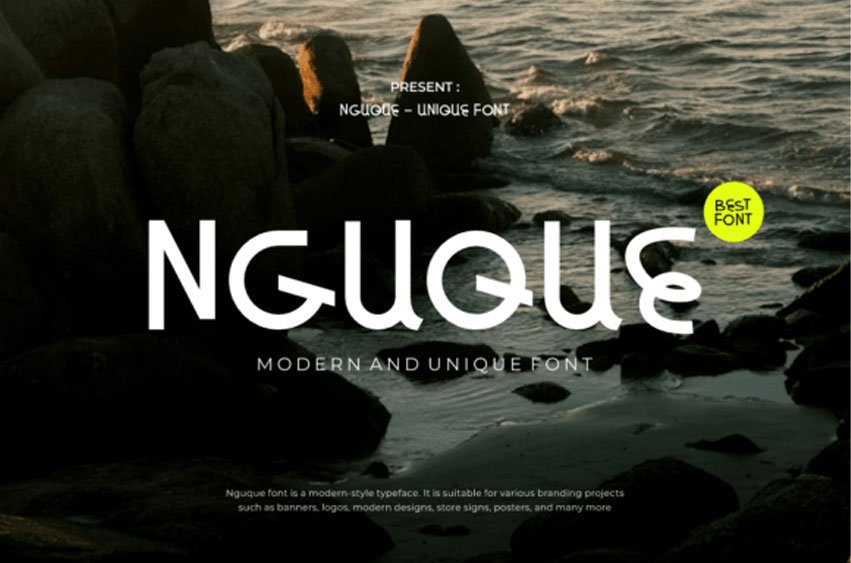
Nguque Font Elevate your visual identity with Nguque, a cutting-edge, modern, and unique font designed for those who dare to be different.
This Nguque typeface features striking geometric forms and unconventional curves that instantly command attention in any high-end branding project. Whether you are crafting sleek logos, minimalist store signs, or impactful posters, the Nguque font provides a sophisticated, futuristic aesthetic that sets your work apart from the competition.
It pairs flawlessly with clean sans-serifs to maintain a balanced look while ensuring your headlines remain the star of the show. Enhance your digital presence or print media with the bold, architectural elegance of this Nguque font.